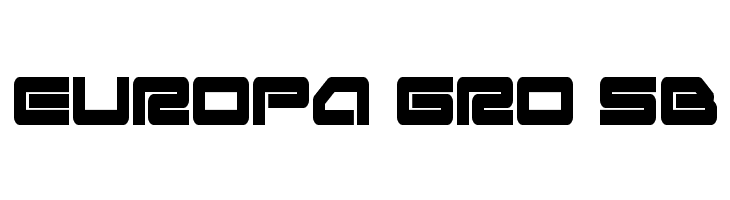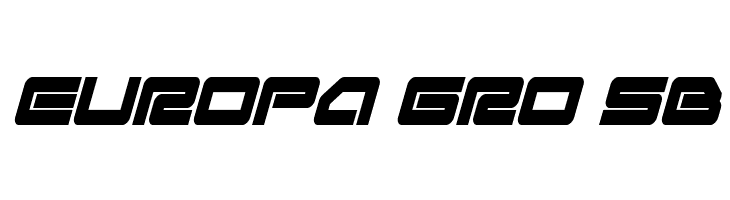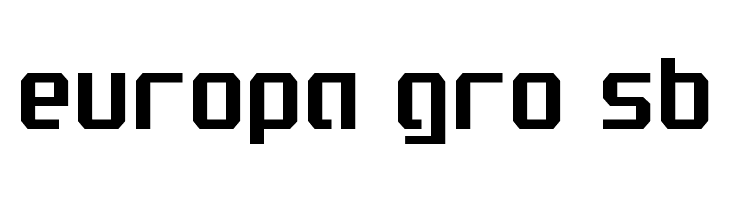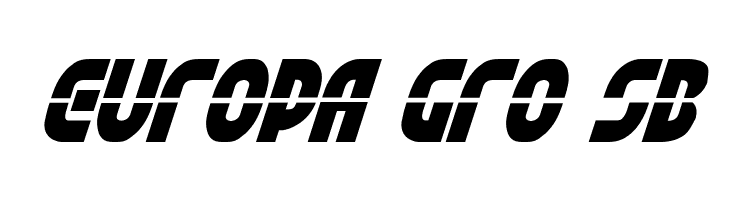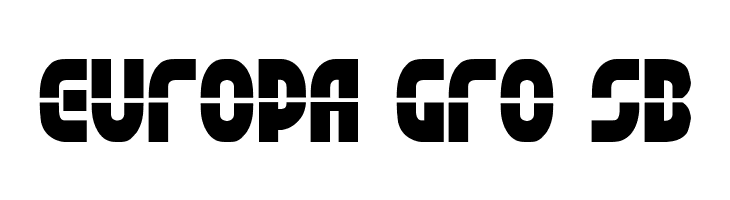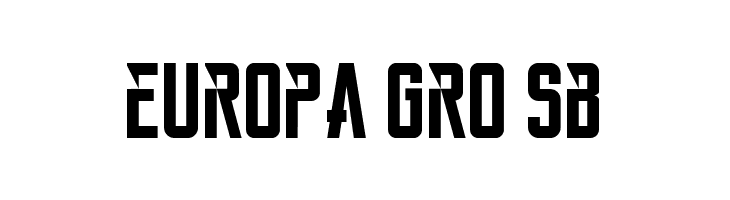
A bold, geometric font with a futuristic and industrial design.
A bold, condensed, and italicized font with a futuristic and dynamic style.
A bold, geometric, and condensed font with a modern industrial style.
A modern, condensed italic font with bold, angular characters.
A bold, geometric font with a futuristic, condensed style.
A bold, condensed, and italic font with a modern, dynamic style.
A bold, geometric font with sharp angles and a modern industrial feel.
A bold, condensed font with thick, uniform strokes and a strong, blocky appearance.